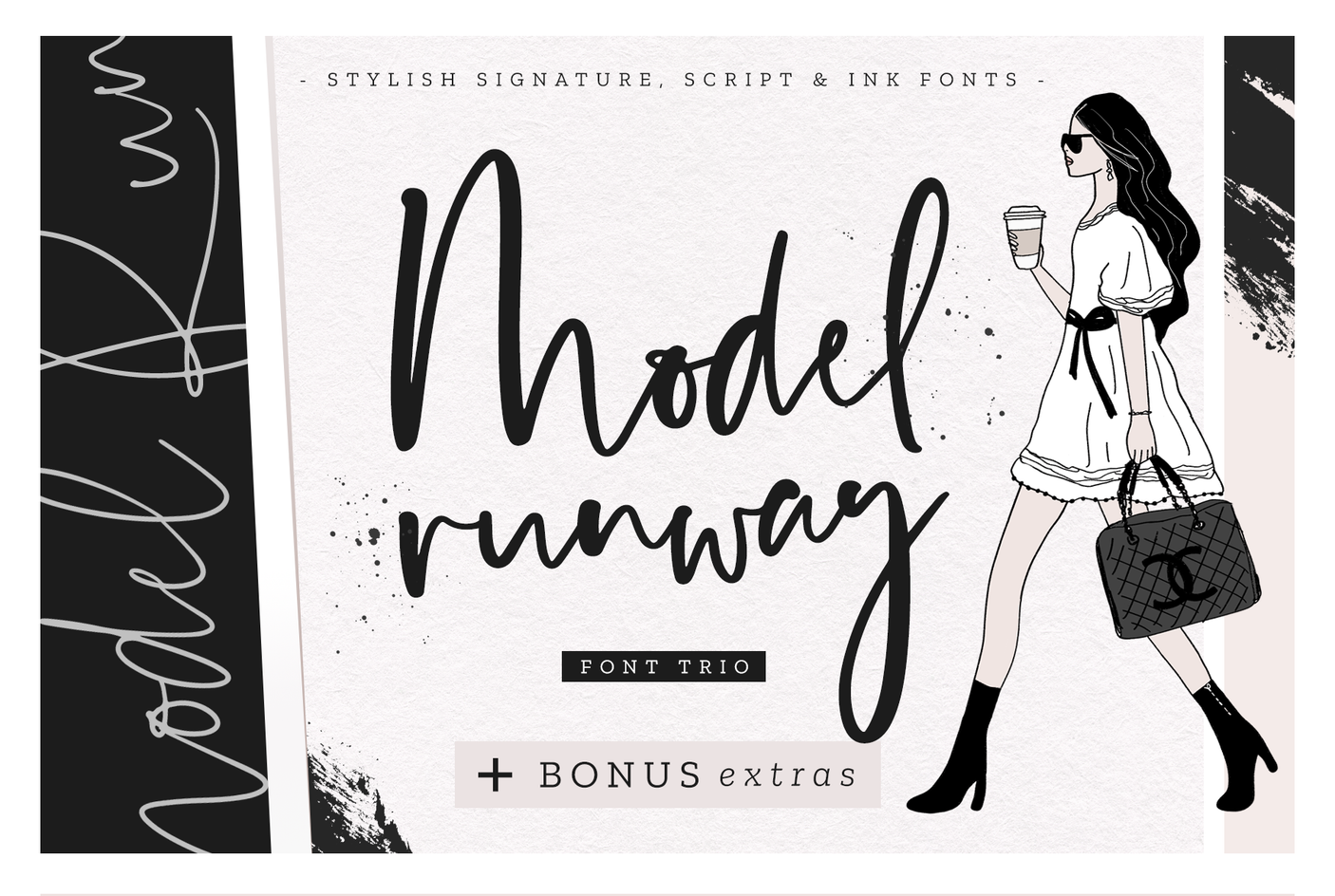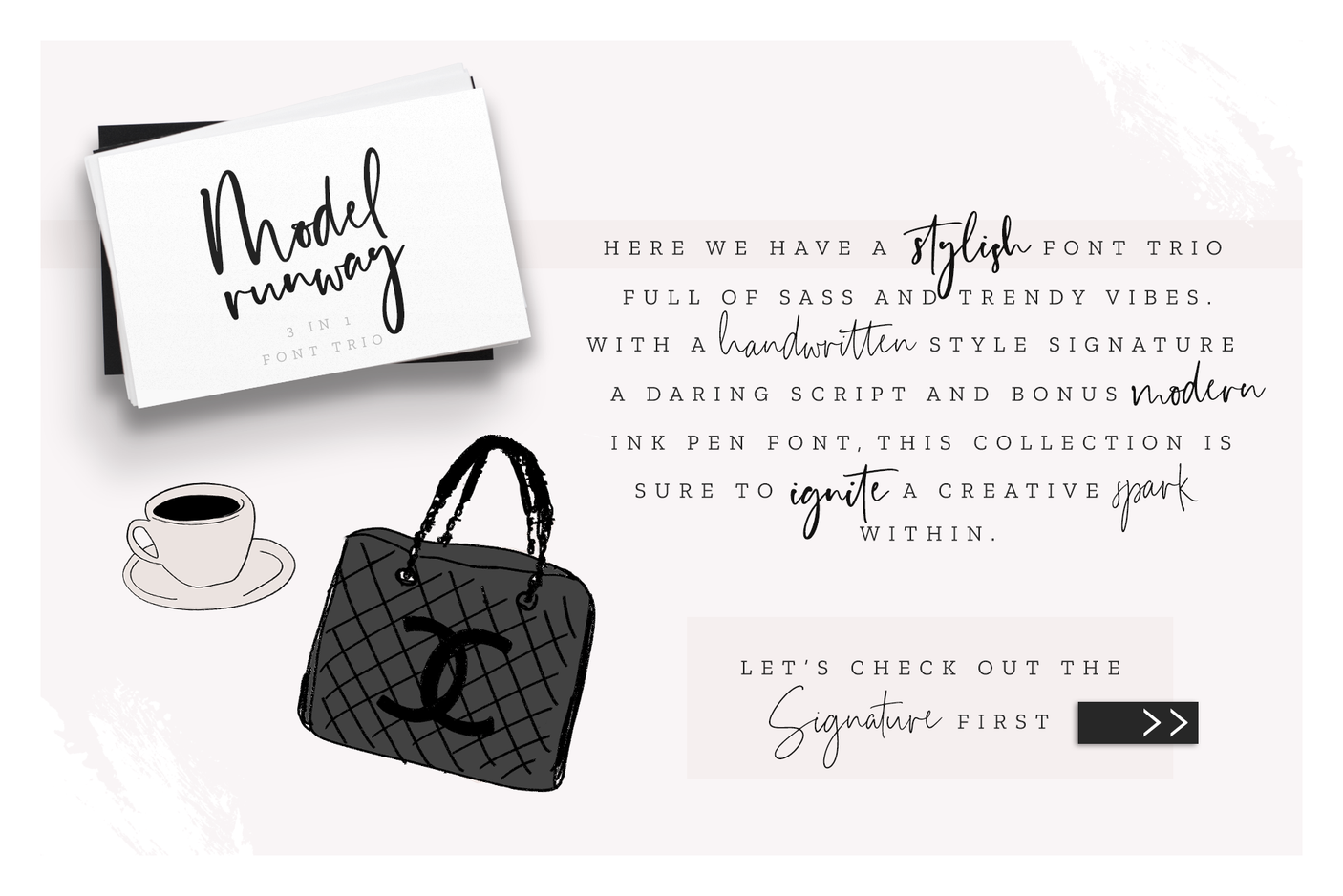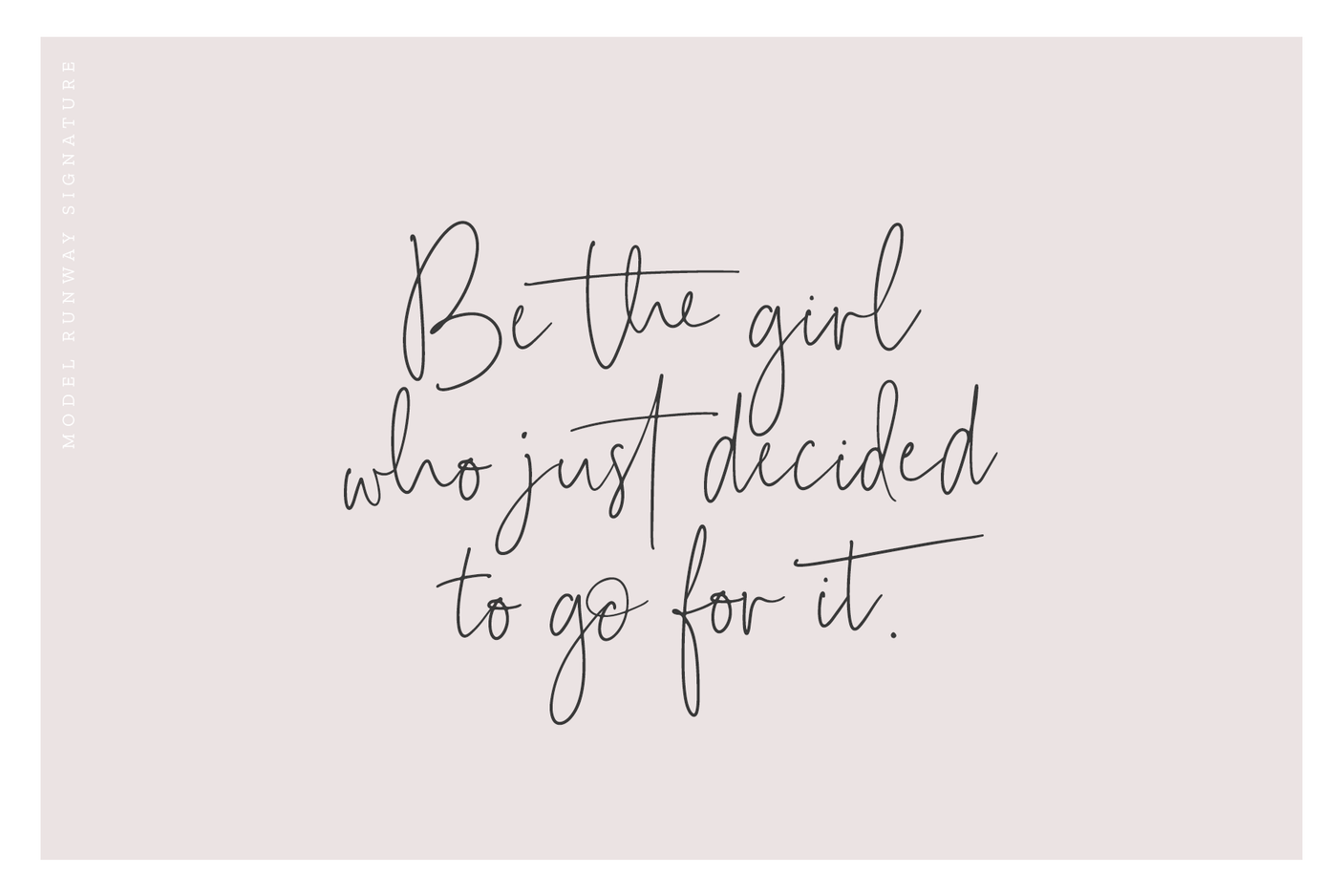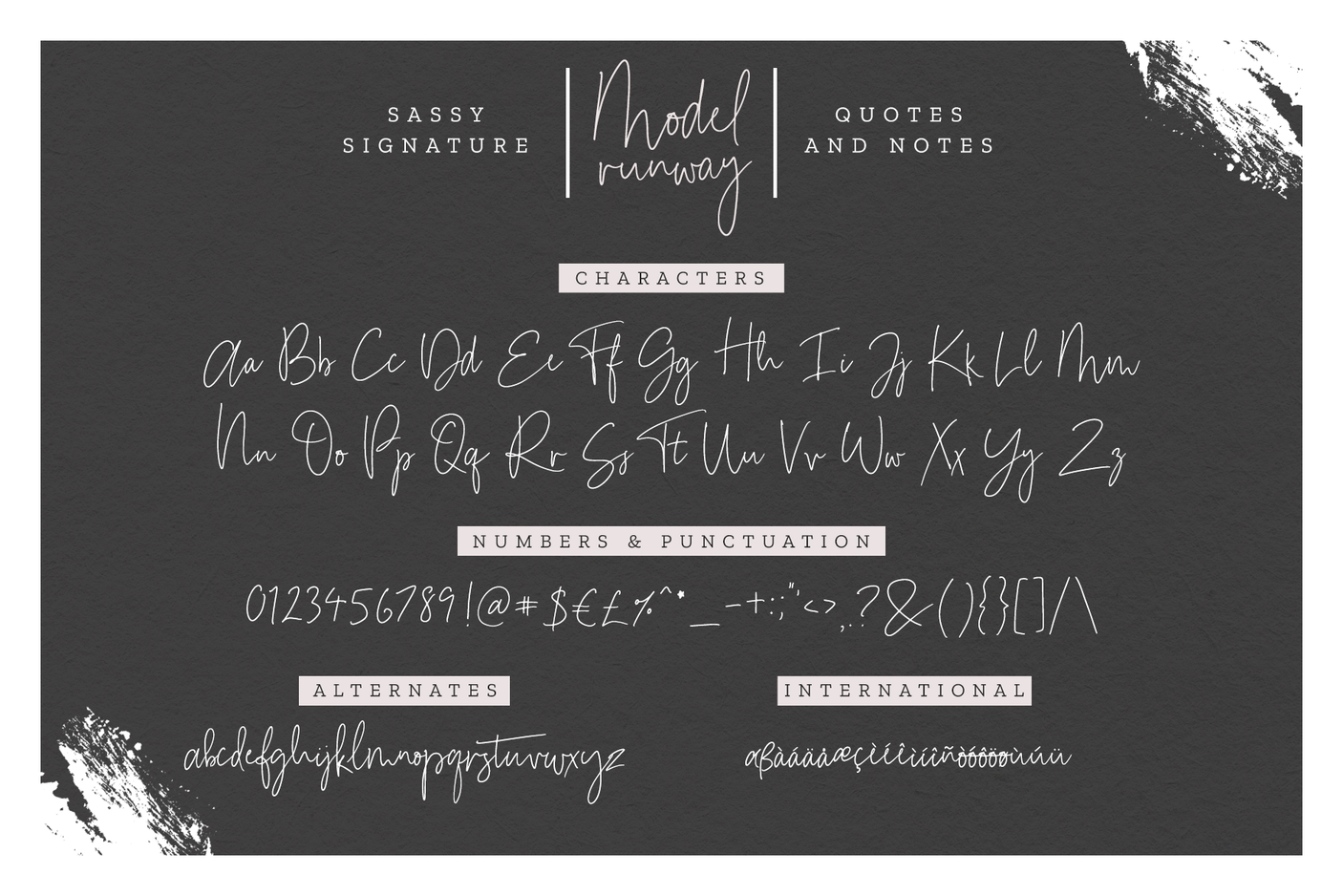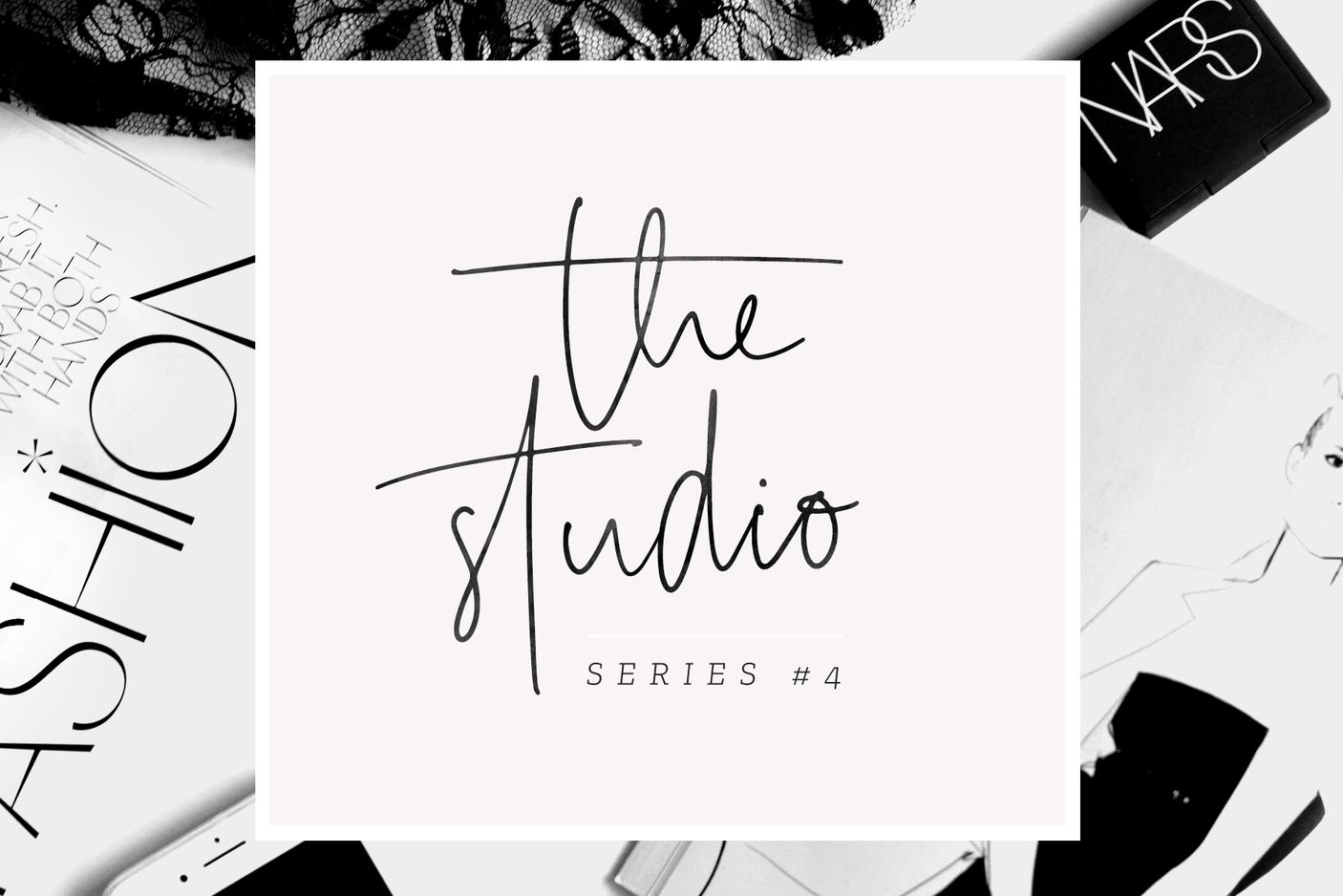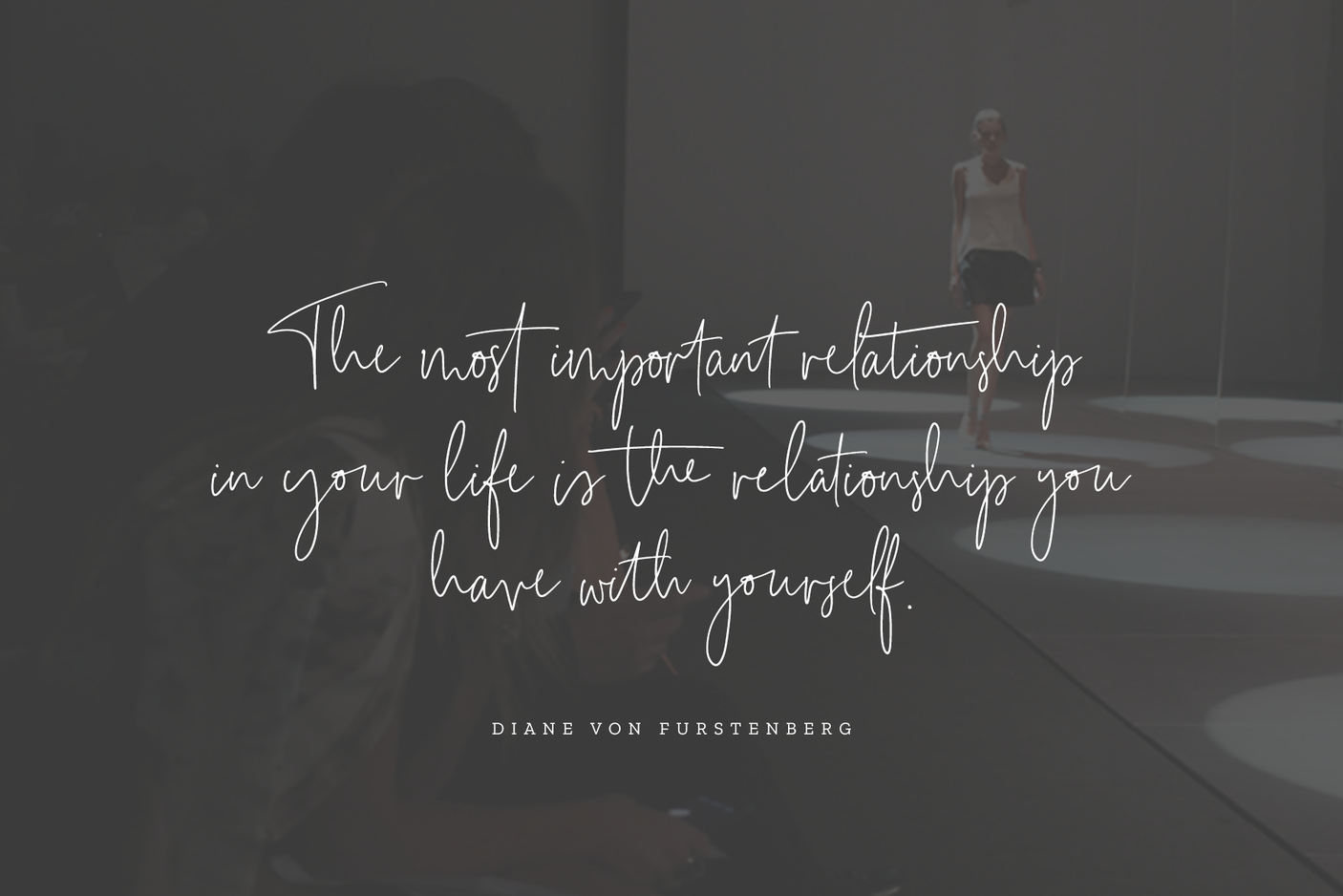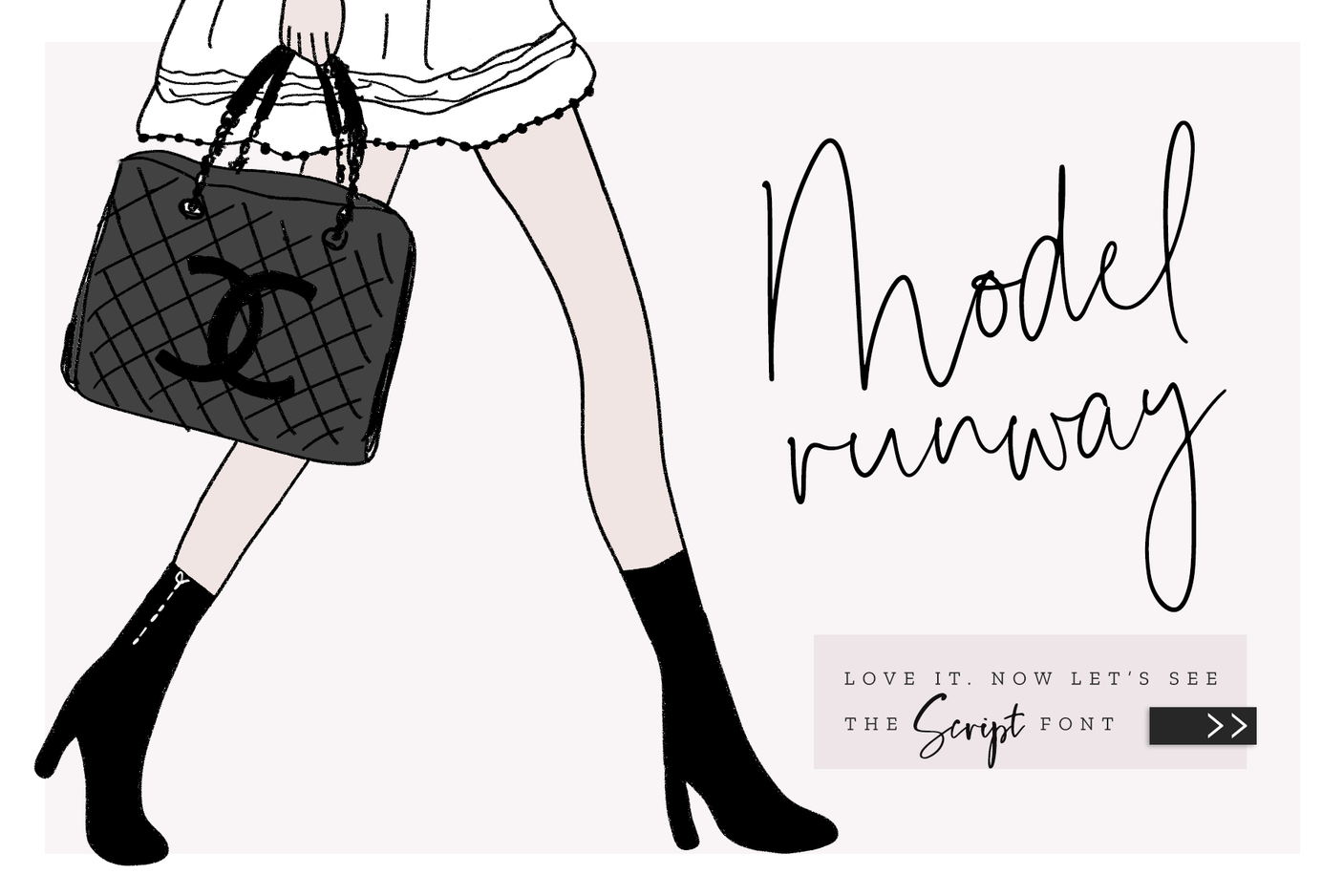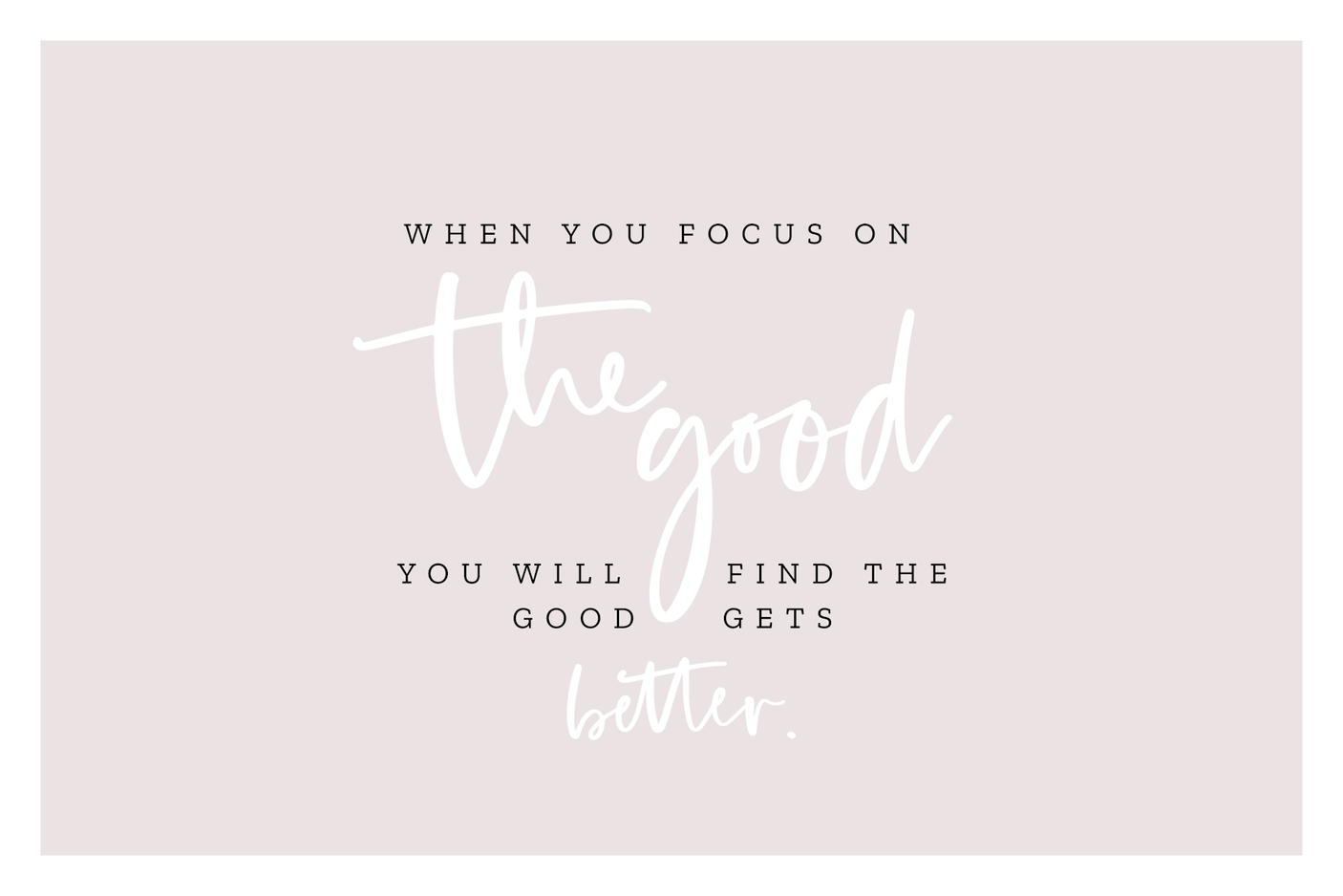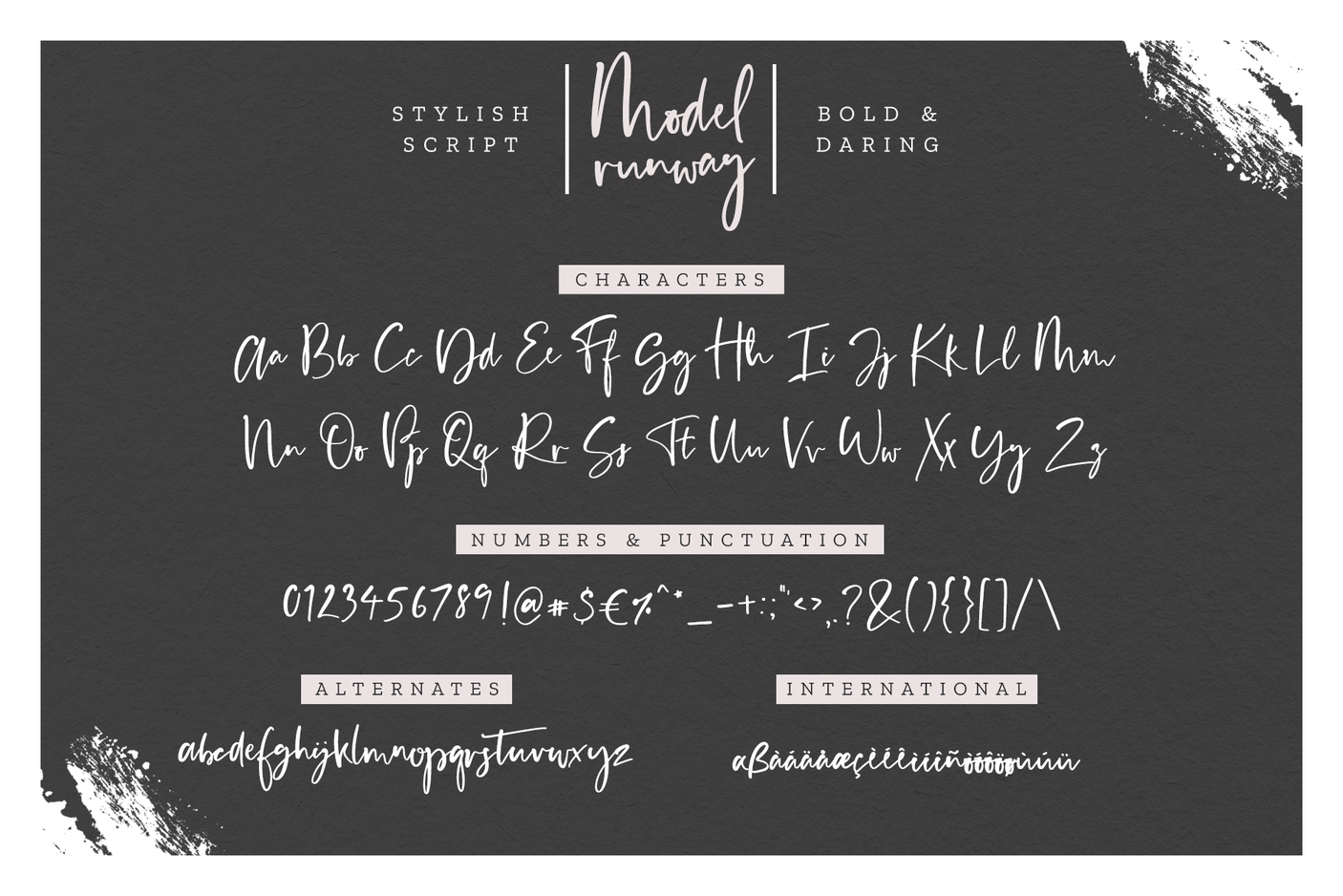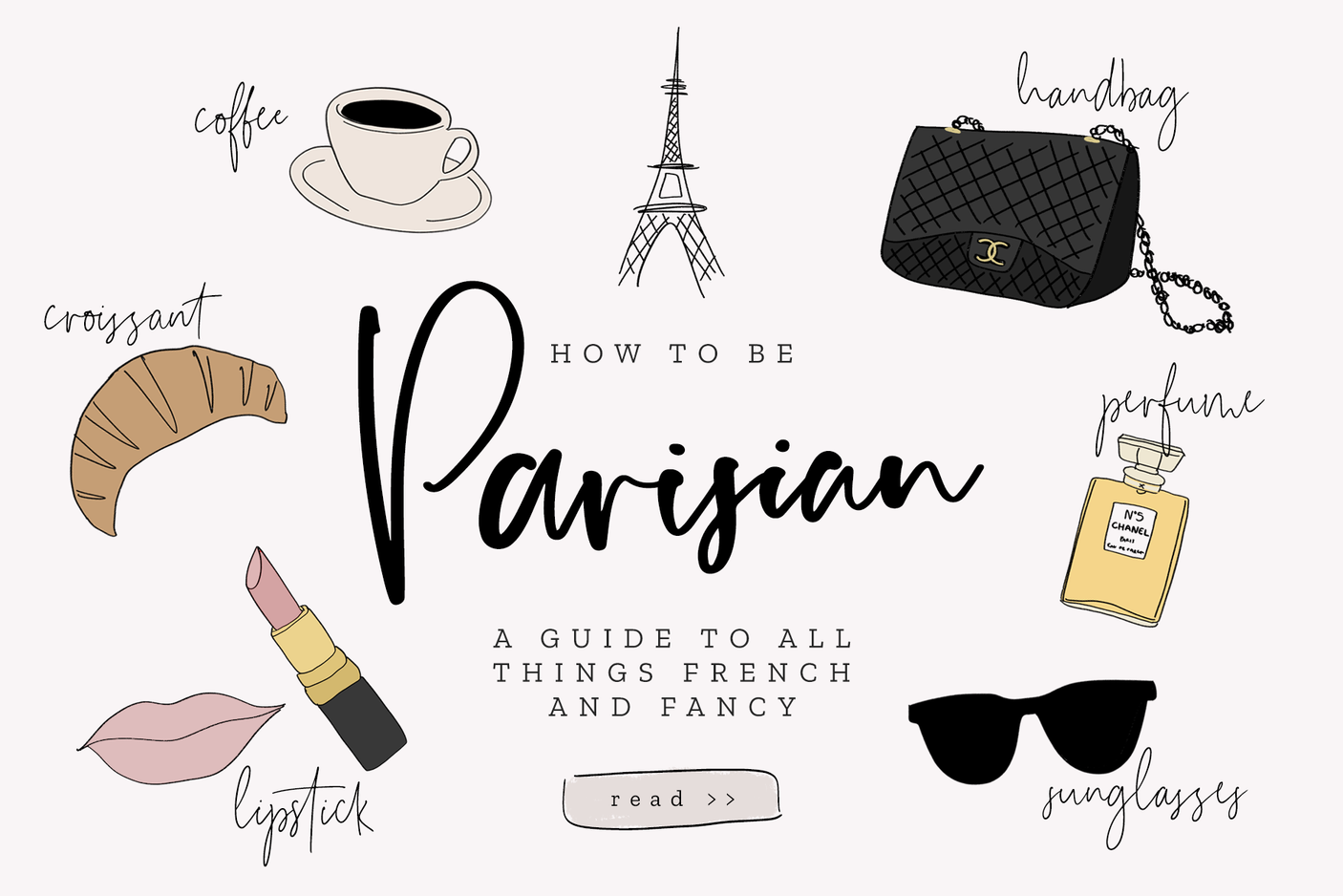
Model Runway Font
Introducing Model Runway, a pack of THREE super stylish fonts including a handwritten signature, modern ink and bold brush script that are all sure to make a statement.
Inspired by scribbled notes alongside fashion pages, illustrations, artwork and collages, all three fonts encompass a hint of sass and ultra stylish vibes that will be sure to ignite a creative spark within.
Get the Model Runway look with the bonus design pieces included to pair perfectly with your new fonts.
- Model Runway Signature
- Model Runway Script
- Model Runway Ink